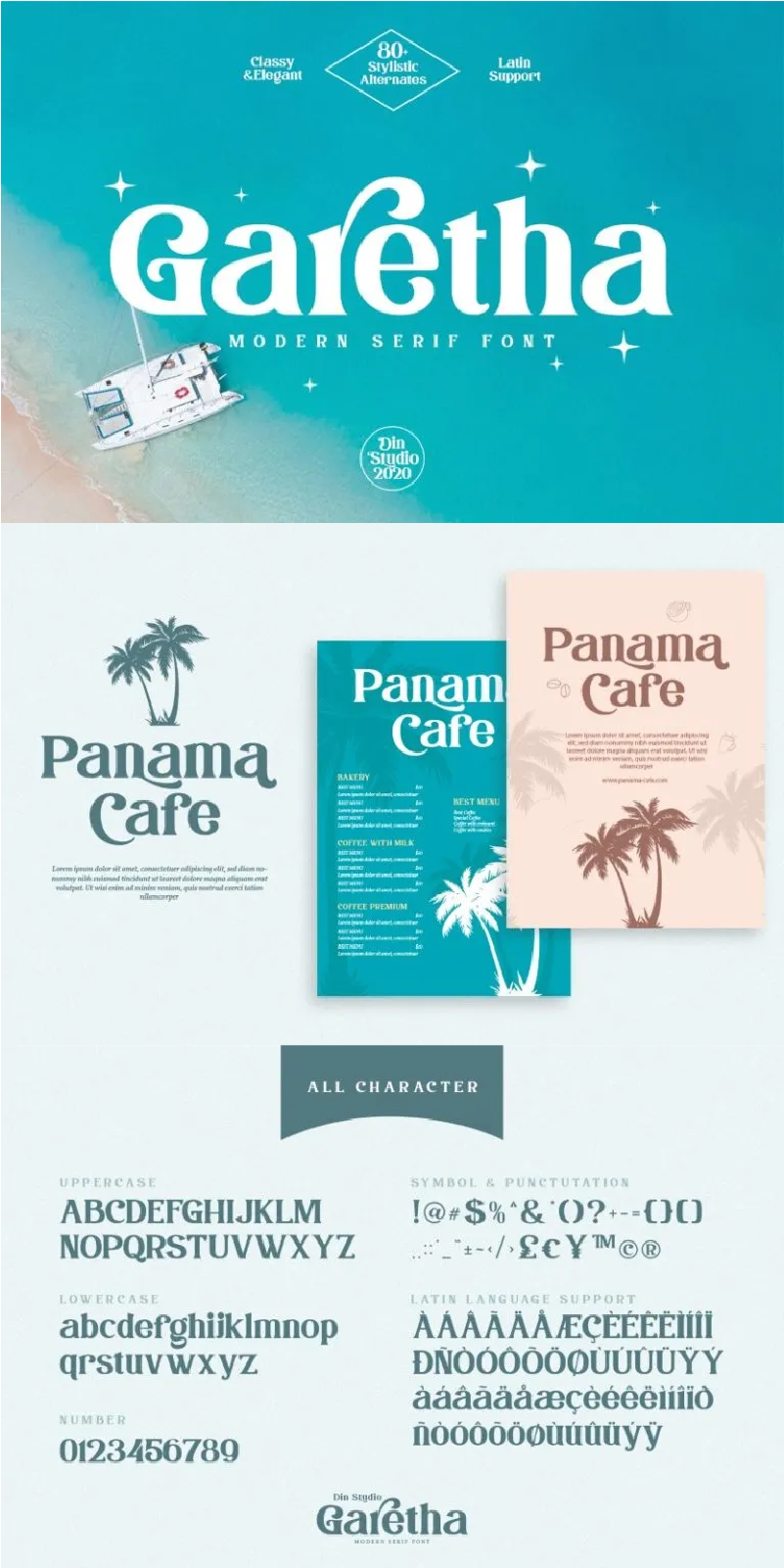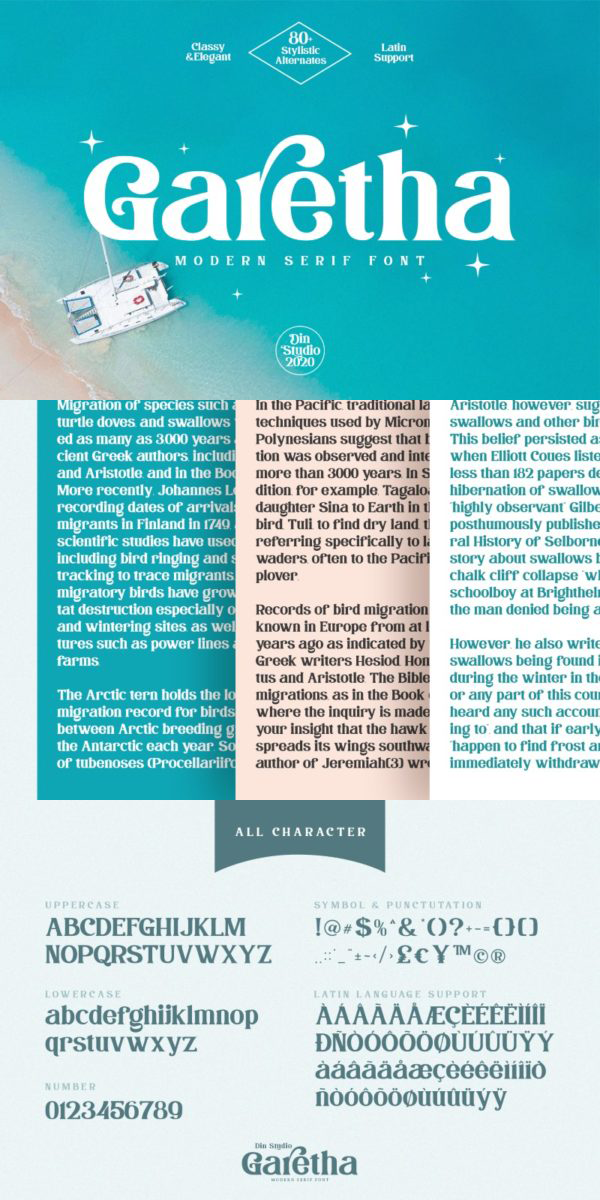
Garetha Font
About Garetha
Garetha, a Modern Sans Serif Font made for any professional project brandings which is best applied for brandings, printings, weddings, and quotes. Every letter has a unique and beautiful touch. See the previews above to get some inspiration on how you can use them. Enjoy the font!